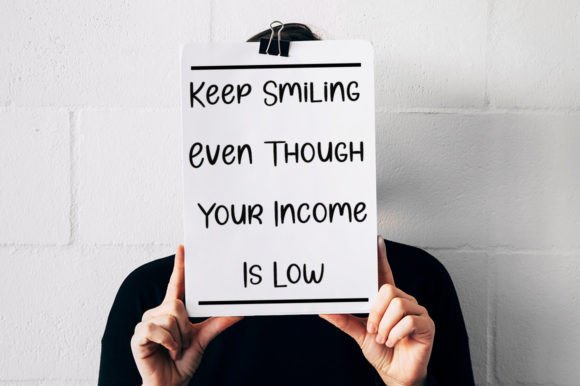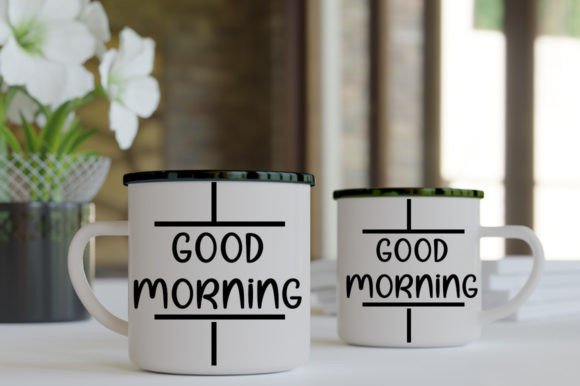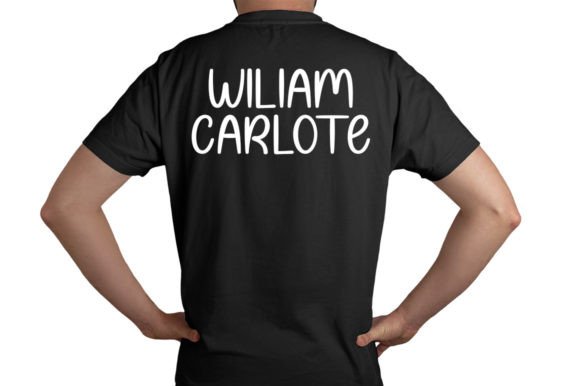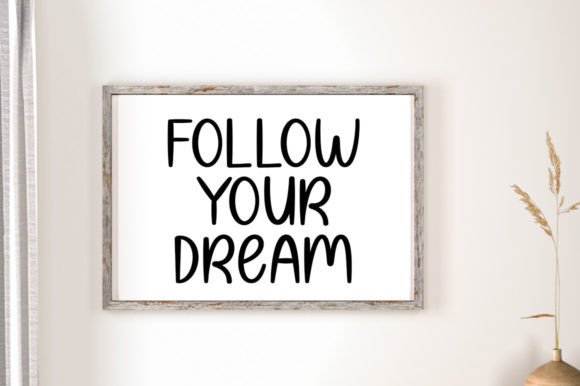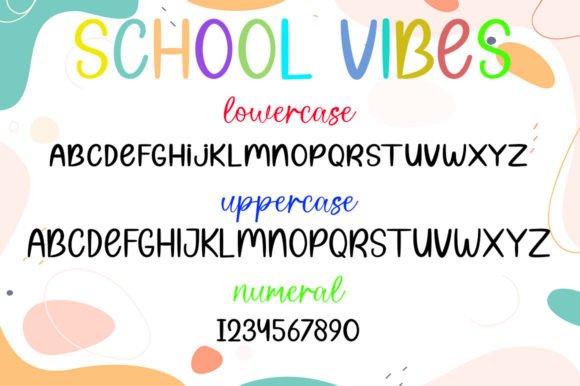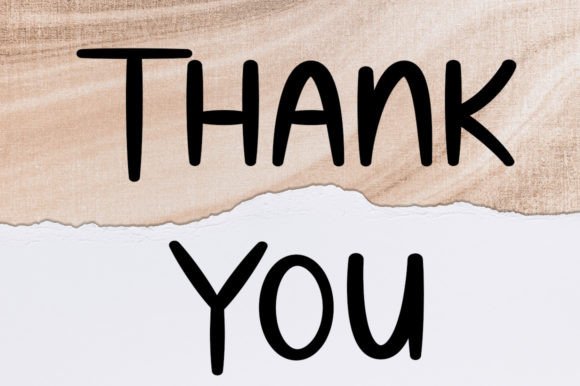
Introduction to School Vibes Font
Remember that one moment when you stumbled upon the perfect font for your creative project, and it all just came together? That’s what I’m hoping to share with you today about the School Vibes Font. This fun and casual handwritten font has been making waves in the design community, and for good reason.
Whether you’re a seasoned designer or just starting out, having a reliable design resource like the School Vibes Font can be a game-changer. Not only is it incredibly versatile, but it’s also available for a free download, making it an accessible option for designers of all levels. Plus, with a transparent background, you can easily integrate it into any high-quality design without worrying about distracting elements.
So, what makes the School Vibes Font so valuable for designers? For one, its unique and playful aesthetic makes it perfect for a wide range of creative projects, from social media graphics to editorial layouts. And with its high-quality design, you can trust that it will look great on any platform or device.
Key Features of School Vibes Font
- The School Vibes Font is a unique design resource that captures the essence of a school environment with its high-quality, bold, and playful style.
- Each character in the font has a transparent background, making it easy to layer over other design elements and create visually appealing compositions.
- What sets the School Vibes Font apart is its ability to evoke a sense of nostalgia and playfulness, making it perfect for projects that require a lighthearted and creative tone.
Honest Review: School Vibes Font
As a designer, I’m always on the lookout for high-quality design resources that can elevate my creative projects. Recently, I came across the School Vibes Font, and I must say, it’s been a game-changer for me. The font’s modern and playful design makes it perfect for anything from educational materials to social media graphics.
- High-quality design that’s perfect for a variety of creative projects
- Some users may find the font too playful or childish for certain projects
- The font family is relatively small, so it may not be suitable for large-scale design projects
Overall, I’m impressed with the School Vibes Font. Its unique design and transparent background make it a valuable addition to any designer’s toolkit. While it may not be suitable for every project, it’s definitely a great option for those looking to add a playful touch to their creative work.
The School Vibes Font is ideal for educational projects, creative portfolios, and marketing materials. It’s also great for adding a personal touch to your social media posts and blog articles.